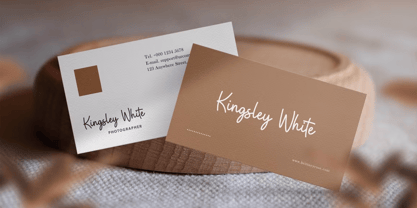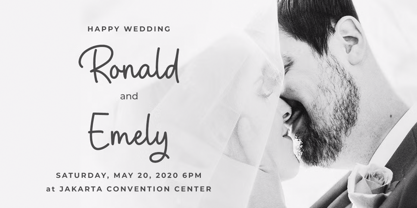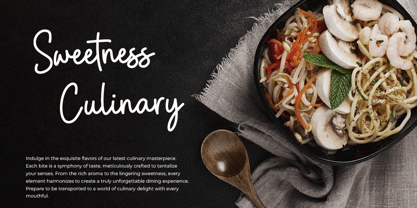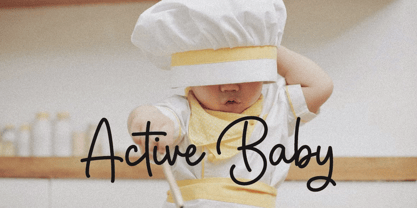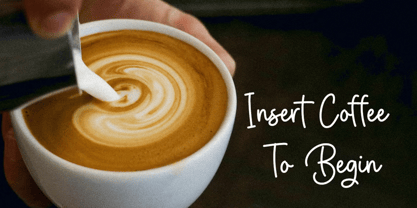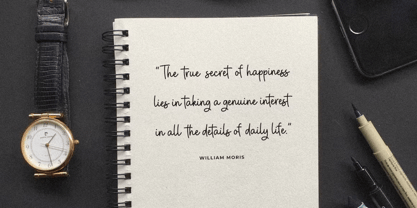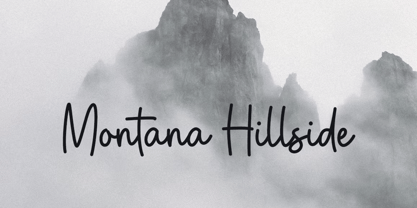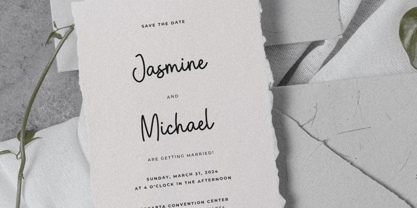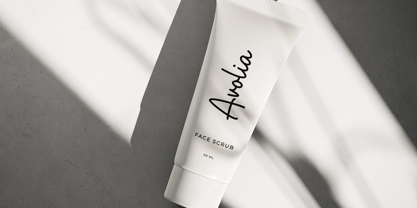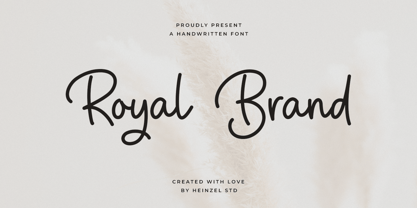
Royal Brand
by Heinzel Std
The Royal Brand Font Family was designed by Nofi Sofyan Hadi and published by Heinzel Std. Royal Brand contains 1 styles. More about this family
Royal Brand is a flowing handwritten font, described by an elegant touch, perfect for your favorite projects. It looks stunning on wedding invitations, thank you cards, quotes, greeting cards, logos, business cards and every other design which needs a handwritten touch. Fall in love with its incredibly distinct and timeless style and use it to create spectacular designs!
Designers: Nofi Sofyan Hadi
Foundry: Heinzel Std